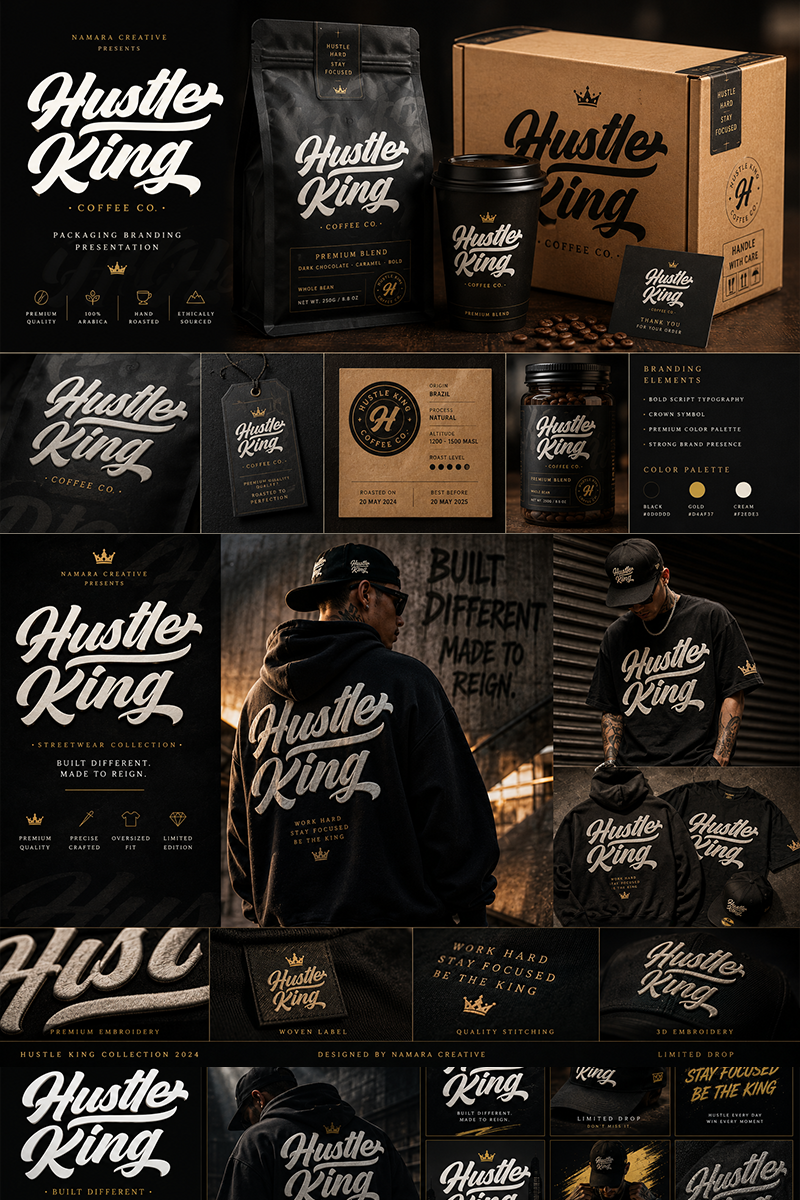
Hustle Kings
bold modern script font designed to deliver strong visual impact with smooth, confident strokes. Featuring thick curves, dynamic swashes, and a sporty handwritten feel, this font blends classic script elegance with modern branding power. Features : - Full set of standard characters and punctuations. - Alternates, ligatures, swashes and multilingual support. - PUA Encoded | no special software needed to access extra characters. Notes : - This Font is PERSONAL USE ONLY, NO COMMERCIAL USE ALLOWED! - For Full Version and COMMERCIAL USE, please purchase license here https://onedsgn.com/product/hustle-kings-bold-script